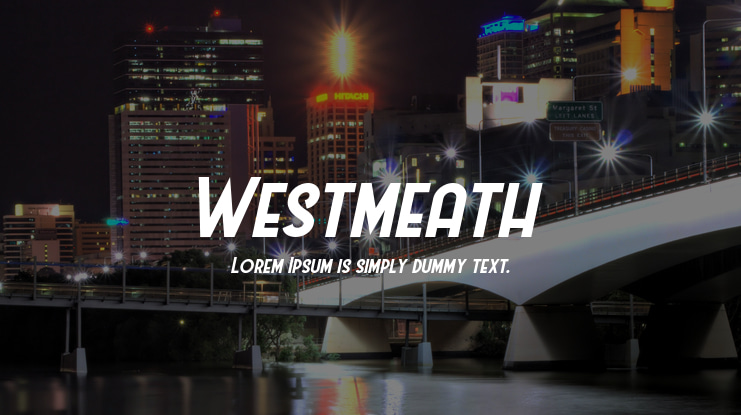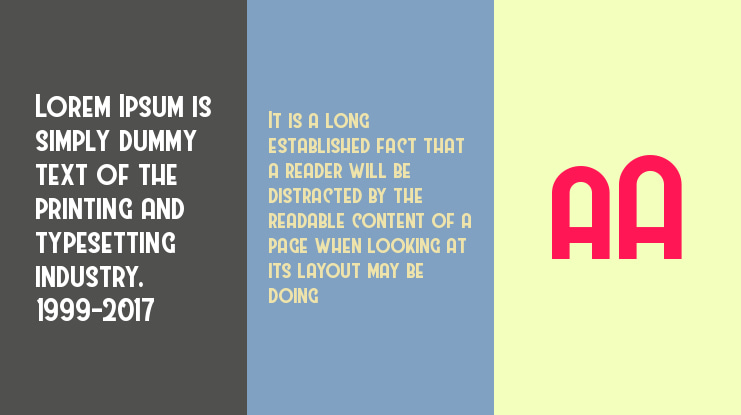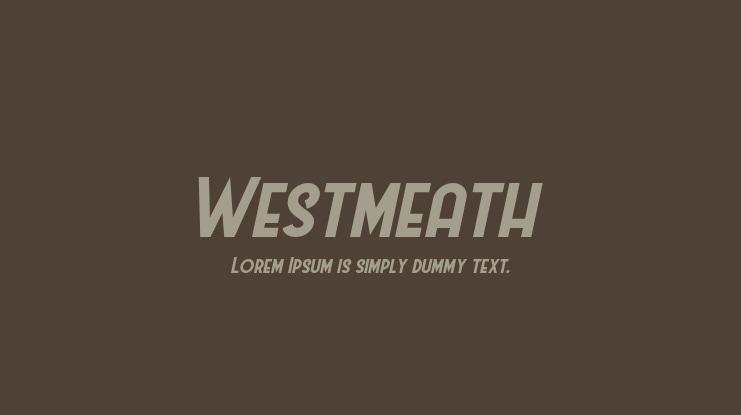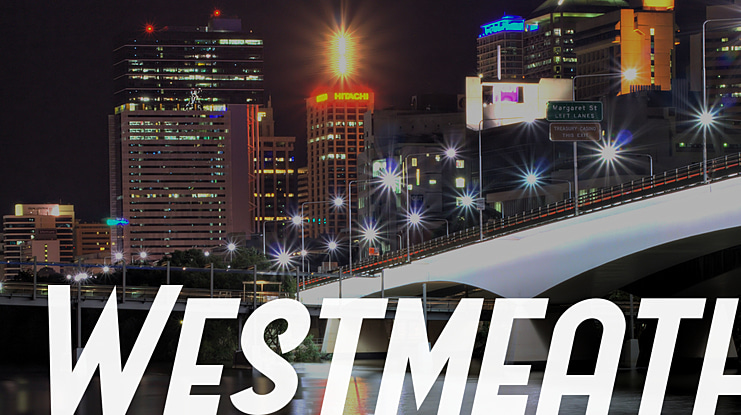
Westmeath Font Family
Designers Note This classic art-decoish font is free for personal and commercial use, but donations are highly appreciated too. XP